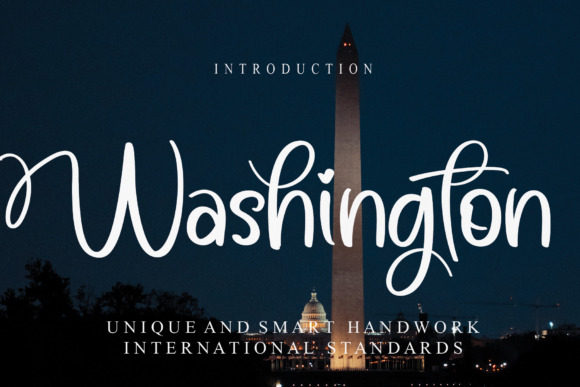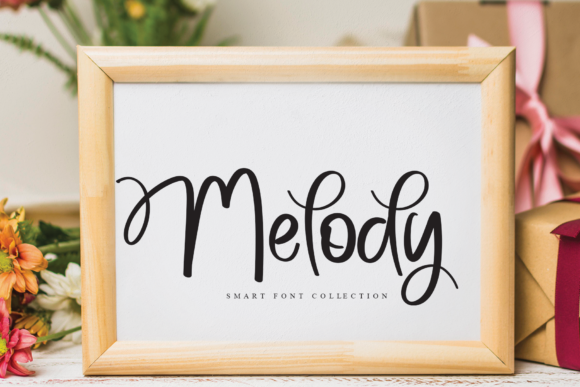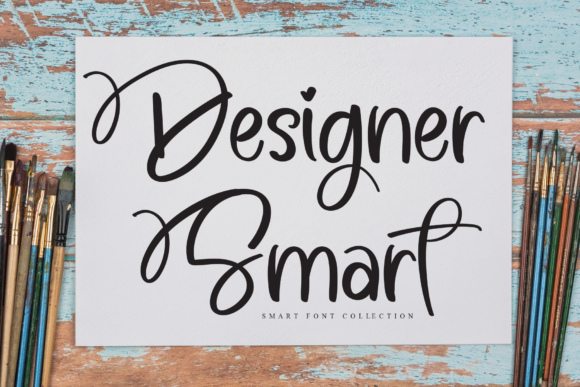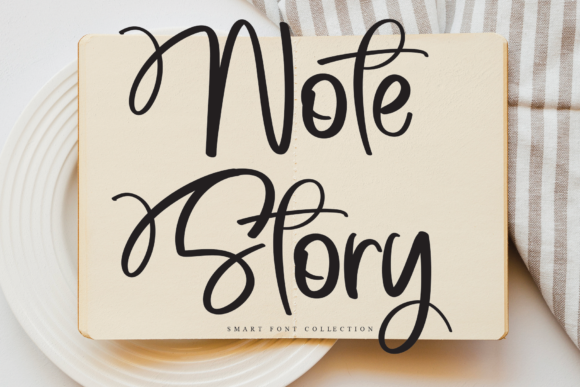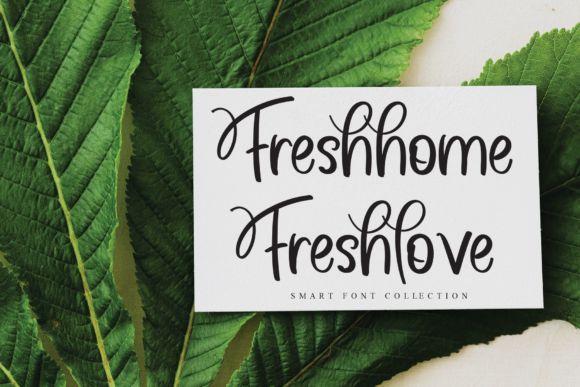
Washington Font
About Washington Font
Washington is a delicate and elegant handwritten font. Its distinct and well rounded letters make this font a masterpiece. Fall in love with its incredibly versatile style and use it to create spectacular designs!